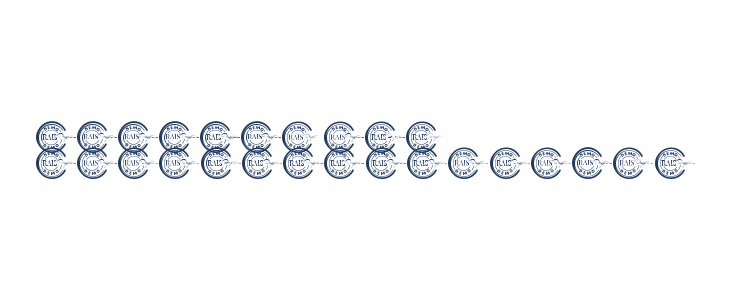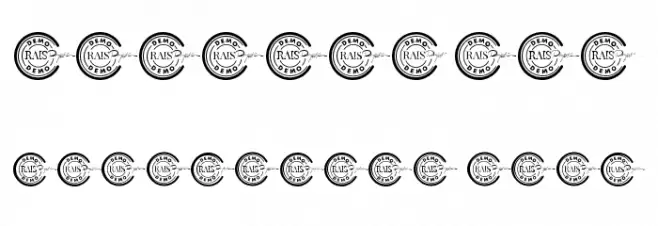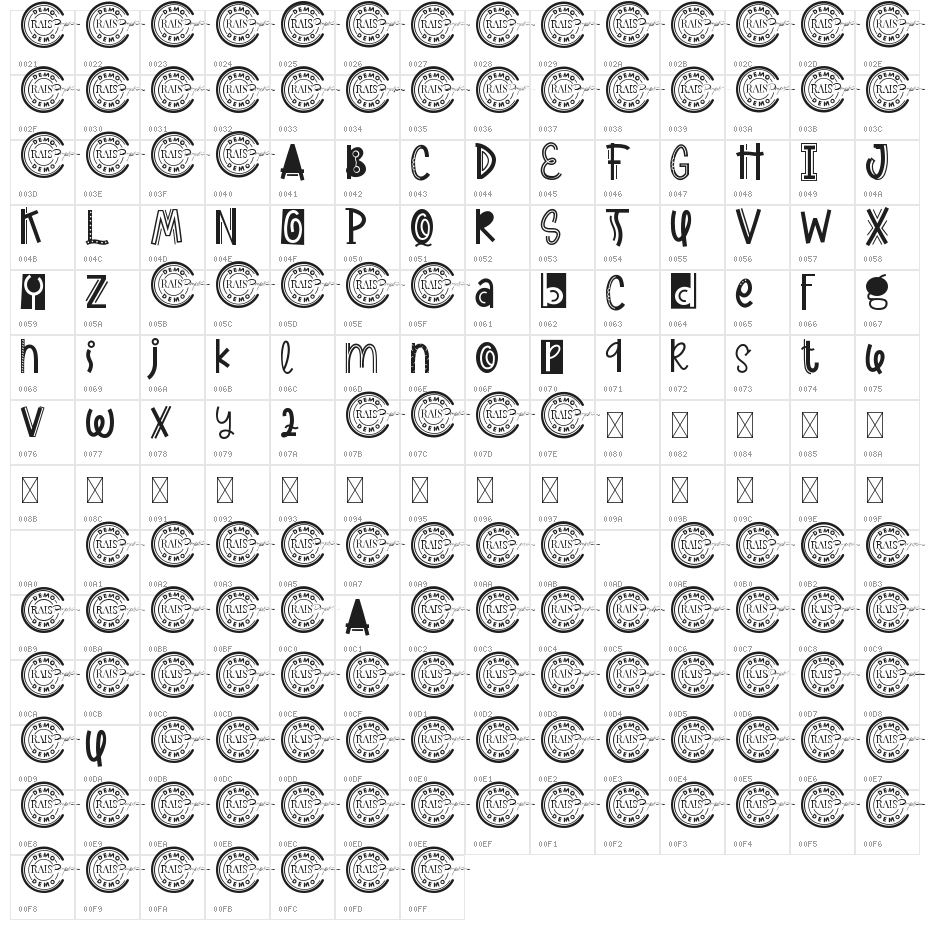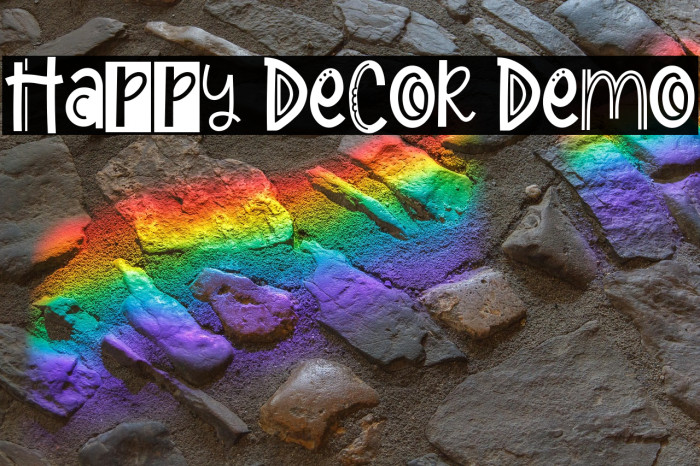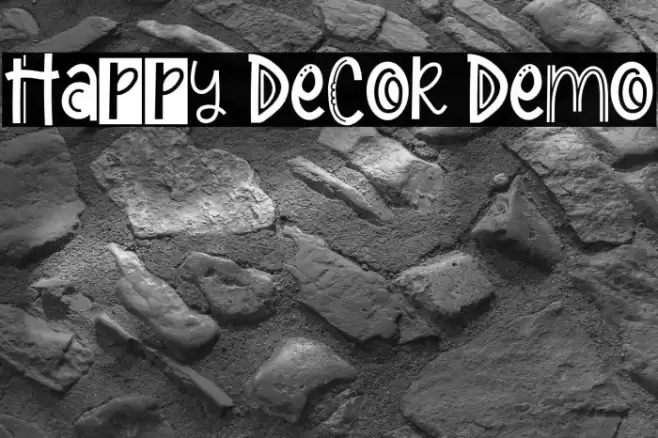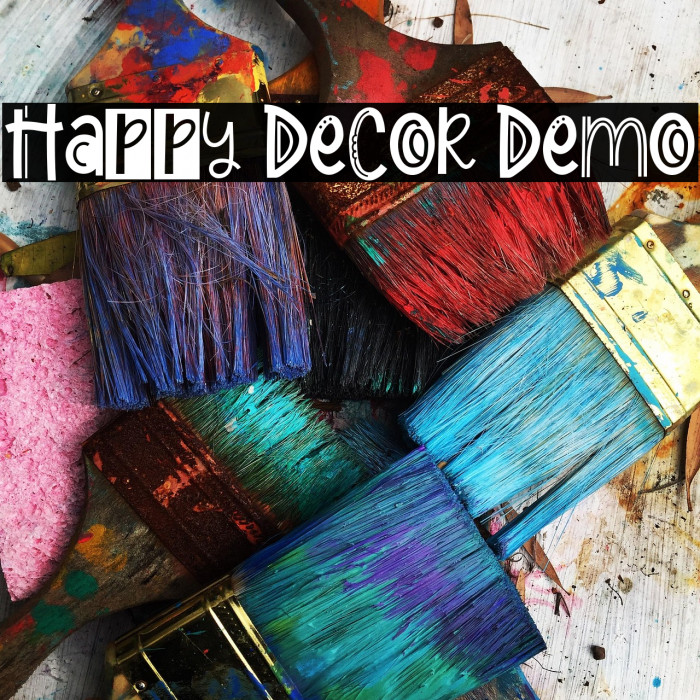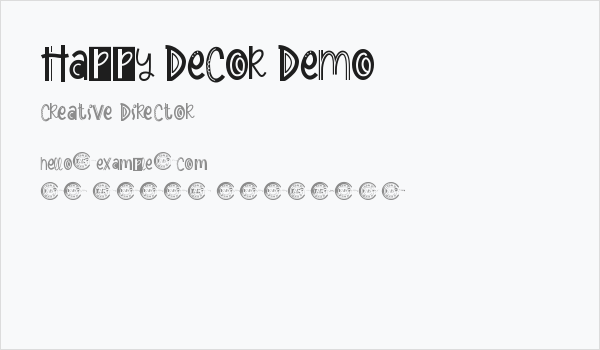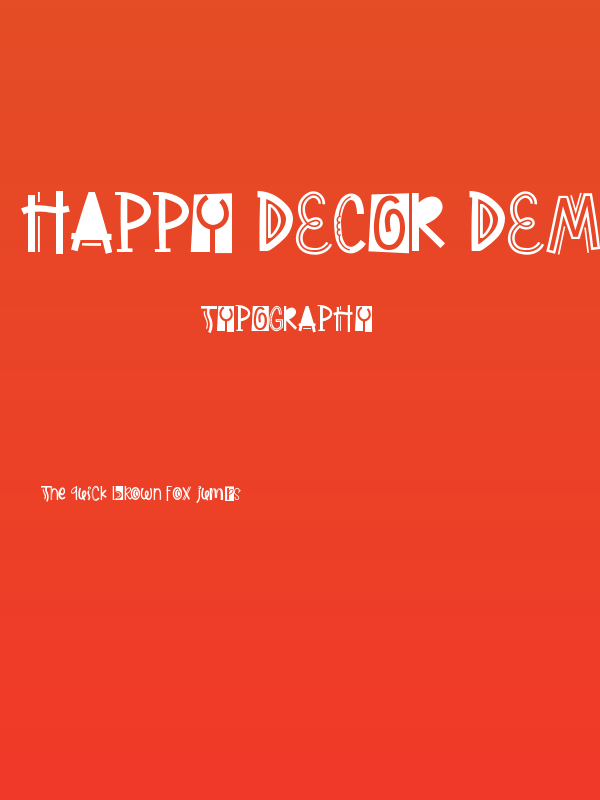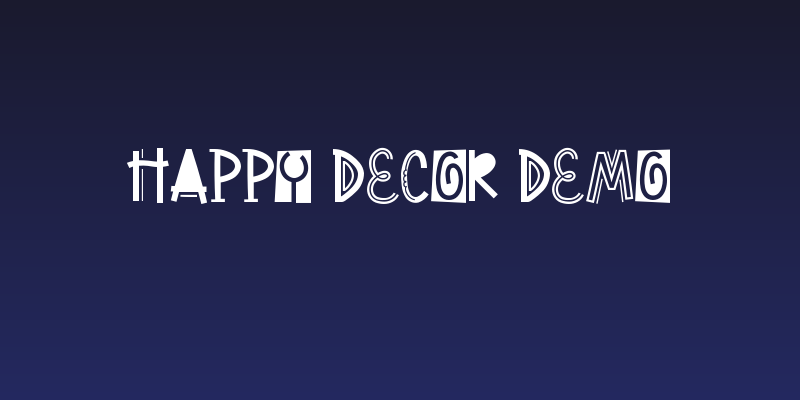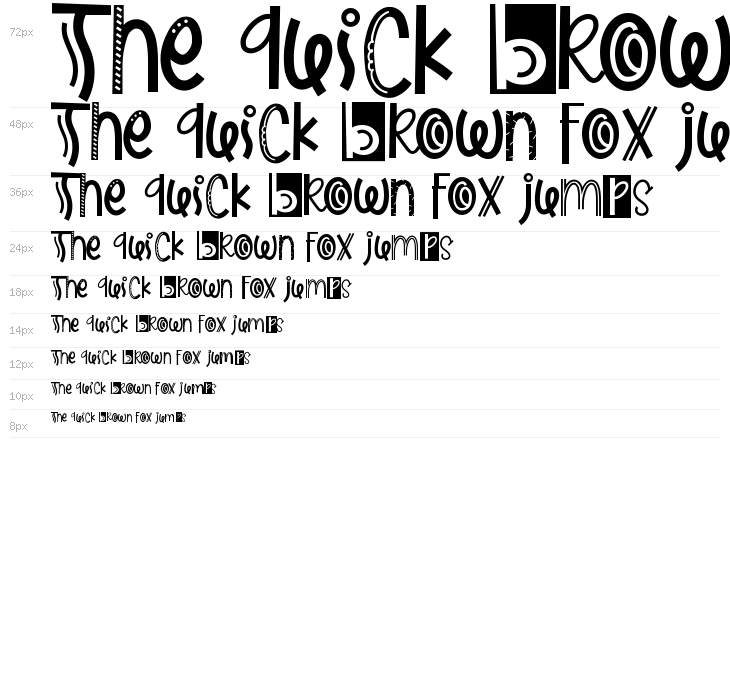
Happy Decor Demo Font
Happy Decor Demo Description
This playful and eclectic font features a mix of bold and whimsical characters, each with its own unique flair. The uppercase letters are a blend of geometric shapes and decorative elements, creating a lively and dynamic appearance. The lowercase letters continue this theme with a variety of styles, including some with playful dots and stripes. The numbers and special characters are equally diverse, adding to the font's overall charm. This font is perfect for projects that require a fun and creative touch, such as children's books, party invitations, or playful branding.
| Proposed Projects | Ideal for children's books, party invitations, playful branding, and creative projects. |